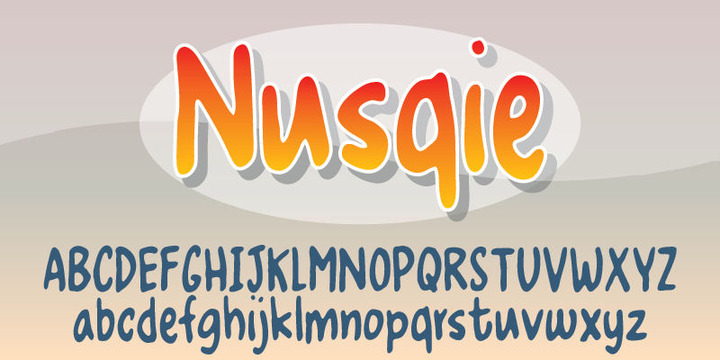
Slightly blurred, and handwritten - looks good with massive text.
With ligatures for both upper- and lowercase double letters, and alternate letters, also for upper- and lowercase, it makes your text look soooo smooth! Oh, I almost forgot: Nusqie also comes with ligatures for double numbers!